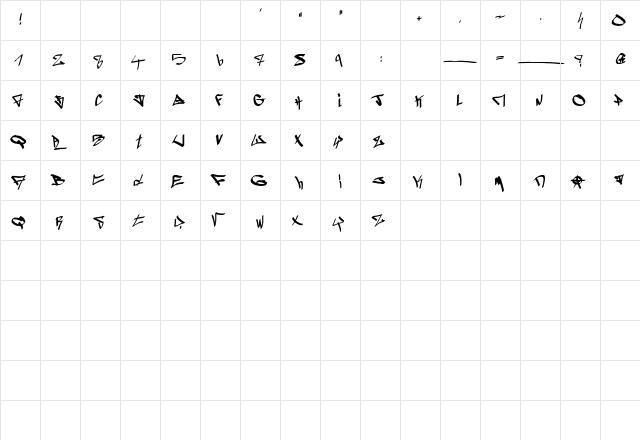
ghettoblasterz Regular
Design Context for ghettoblasterz Typeface
ghettoblasterz is a composed and adaptable typeface that performs quietly and consistently across a wide range of design contexts.